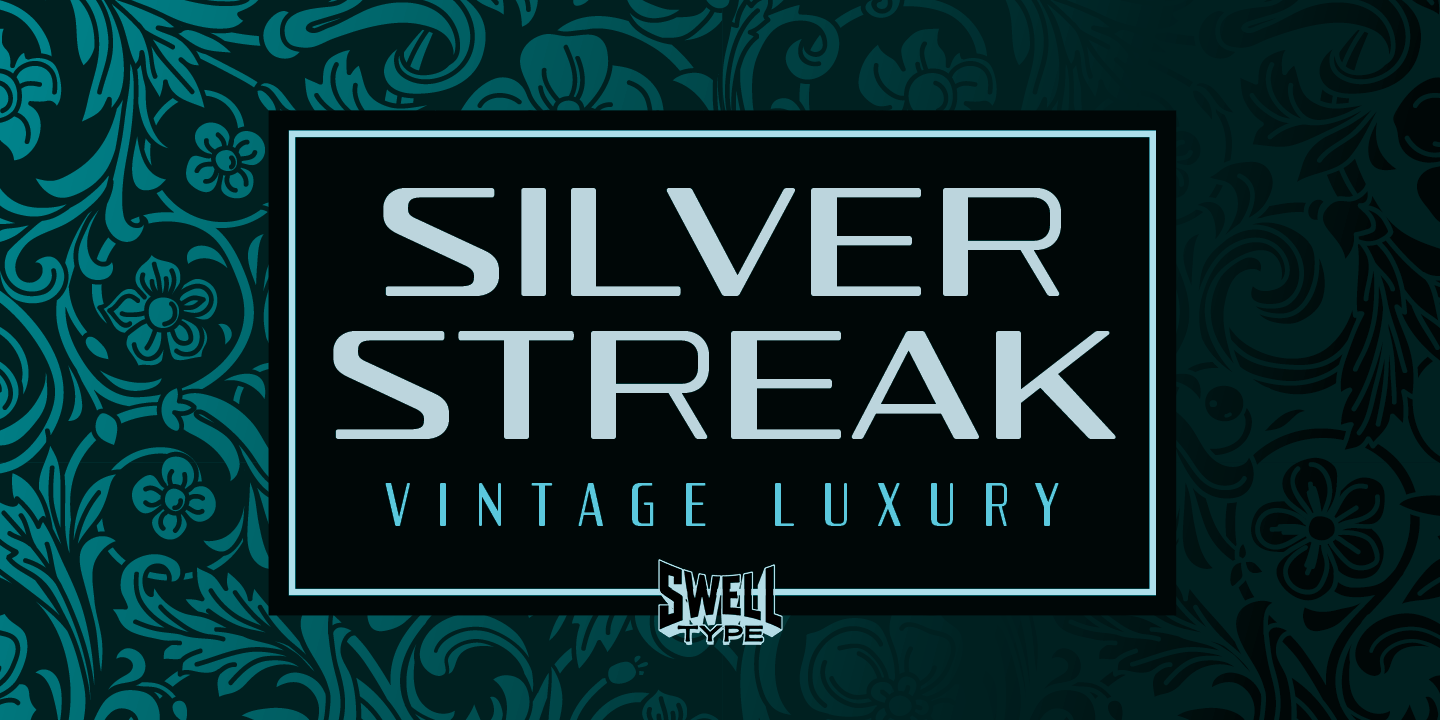
Looking for a font that captures the essence of motion and cutting-edge technology? Silver Streak Font Free Download delivers a streamlined, aerodynamic design perfect for automotive branding, tech startups, sports graphics, and any project needing dynamic, forward-thinking typography. Its sharp angles and smooth curves create a sense of speed and innovation.
Why Choose Silver Streak Font?
Silver Streak Font Free Download accelerates your designs with:
Wind-tunnel-tested letterforms for maximum visual velocity
Multiple weights from Light to UltraBold for versatility
Perfect for performance branding and tech interfaces
Includes alternate characters for custom styling
Rev up your projects with this high-octane typeface for:
Automotive logos & motorsports branding
Tech startup identities & app interfaces
Extreme sports gear & energy drink packaging
Sci-fi media titles & gaming graphics
Designer Tip: Combine with motion blur effects for extra speed illusion!
(Typography Tip: Use italic variants to enhance the sense of motion!)